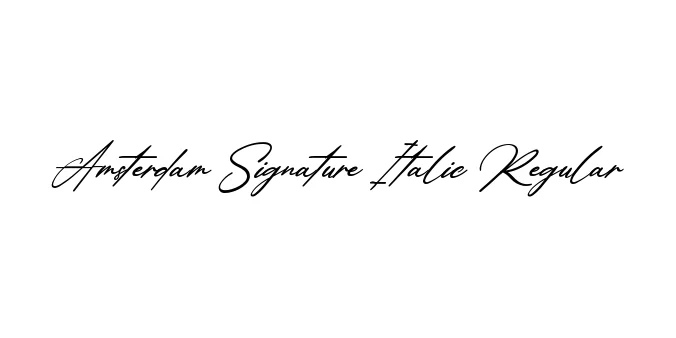
Amsterdam Signature Italic Regular
Designed by Lettersiro Studio
| Font Name | Amsterdam Signature Italic |
| Category | Script / Signature |
| Designer | Lettersiro Studio |
Amsterdam Signature Italic Regular is a sophisticated and fluid script font designed to emulate the natural elegance of hand-drawn calligraphy. Developed by Lettersiro Studio, this typeface has become a staple for designers looking to inject a sense of luxury and a personal touch into their digital projects. Its slender strokes and rhythmic flow make it particularly effective for high-end branding and aesthetic design layouts.
The italic variant provides an enhanced sense of motion and grace, making it a versatile choice for both print and digital media. Whether used for a minimalist logo or an elaborate invitation, Amsterdam Signature Italic Regular maintains high legibility while offering a distinct, professional flair that stands out in a crowded visual landscape.
Amsterdam Signature Italic Regular Best Uses